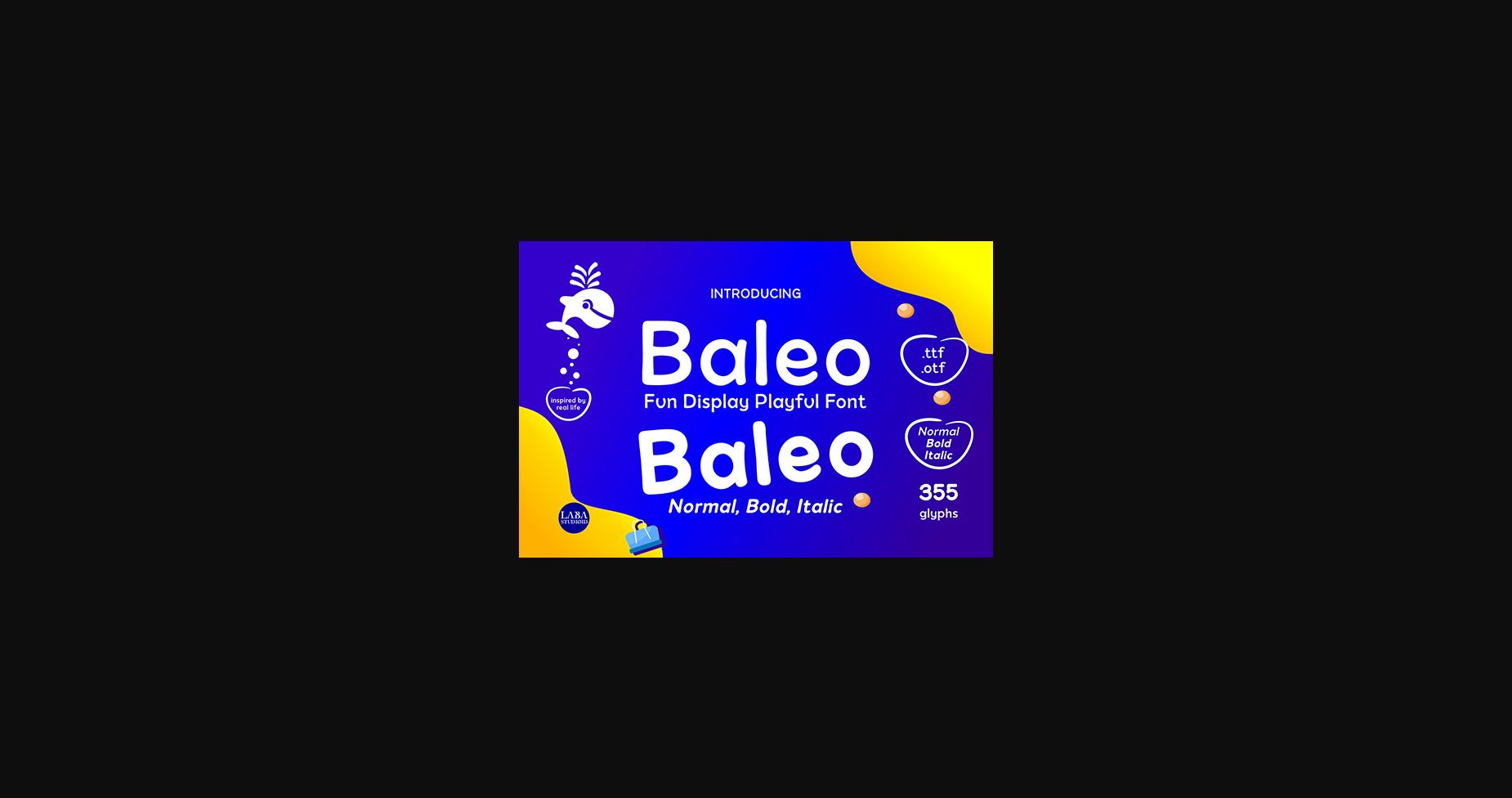
About Baleo Font
Baleo is a clean, vintage styled and neat sans serif font. It is suitable for logotype, headline font, in corporate identity, brand identity, apparel industry, poster, music, movie, game, magazine, book, comic, cartoon, YouTube, Instagram, website, or any of your creative design projects.